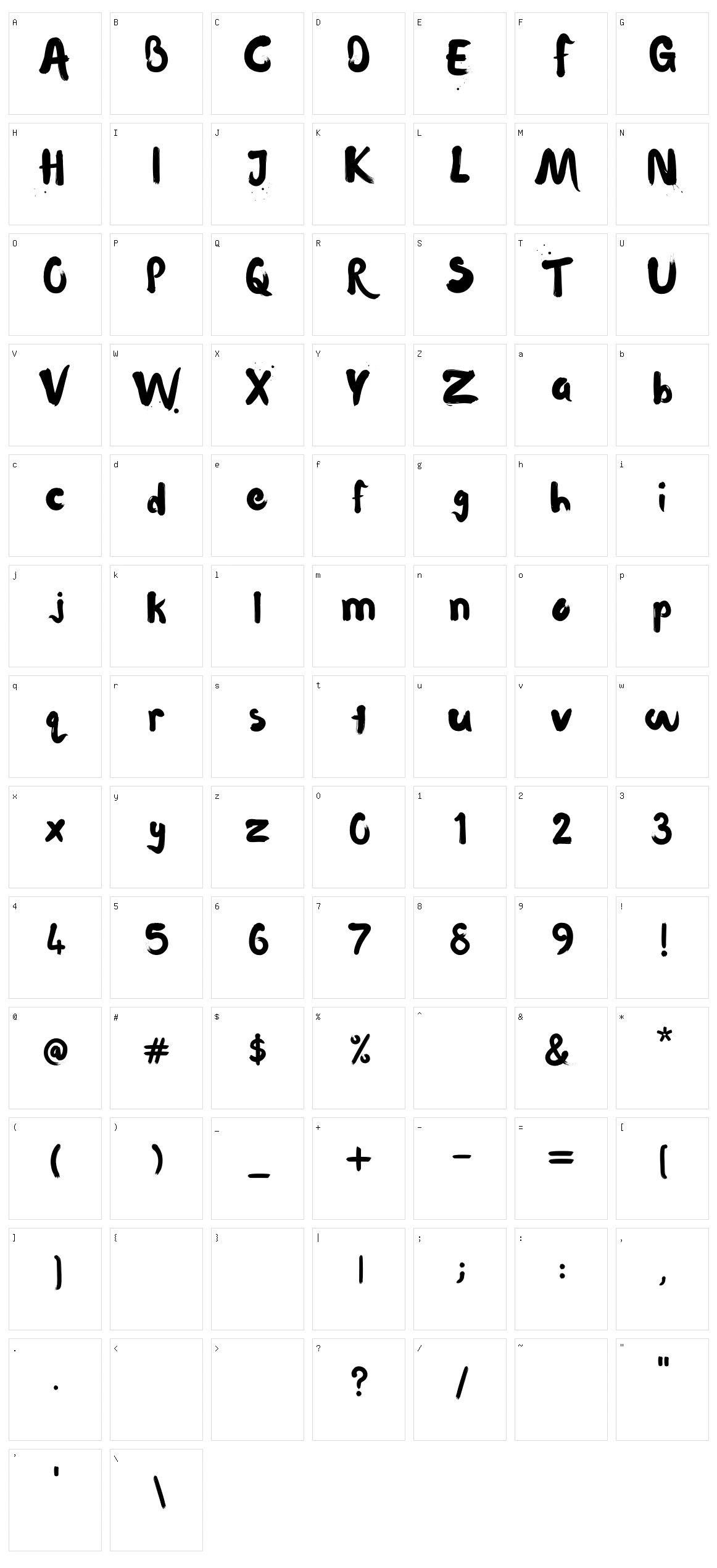
The free font Waterlily is carefully designed by The Hungry JPEG, showcasing a thoughtful balance of creativity and usability and falls under the Script font style. When you download the ZIP file, it contains only 101.55 KB of font files, making it lightweight and quick to download. Please review the license details below to understand permitted usage and distribution rights. If license information is not available, we recommend using this font for personal projects only or contacting the author directly for commercial usage permissions.